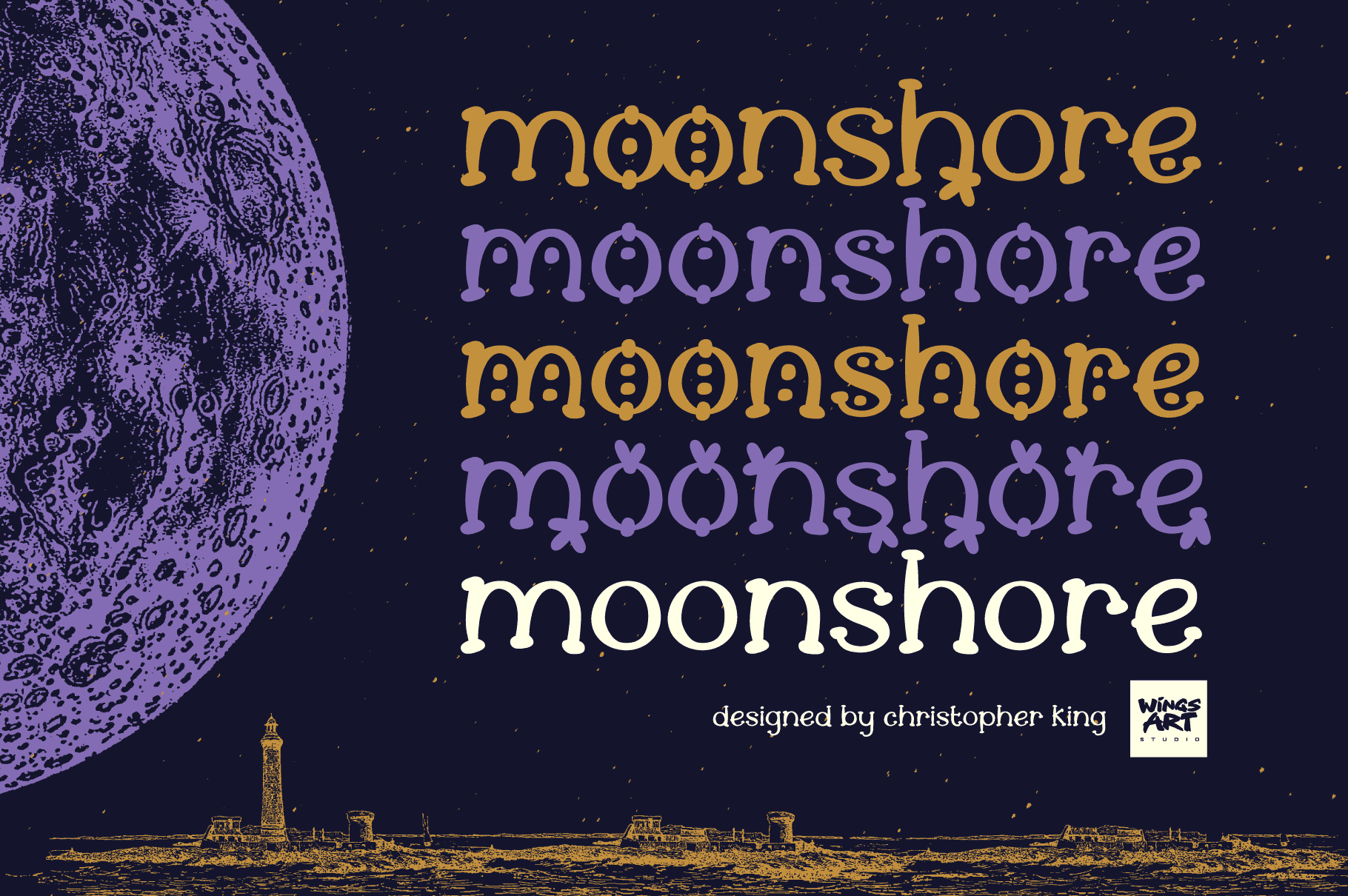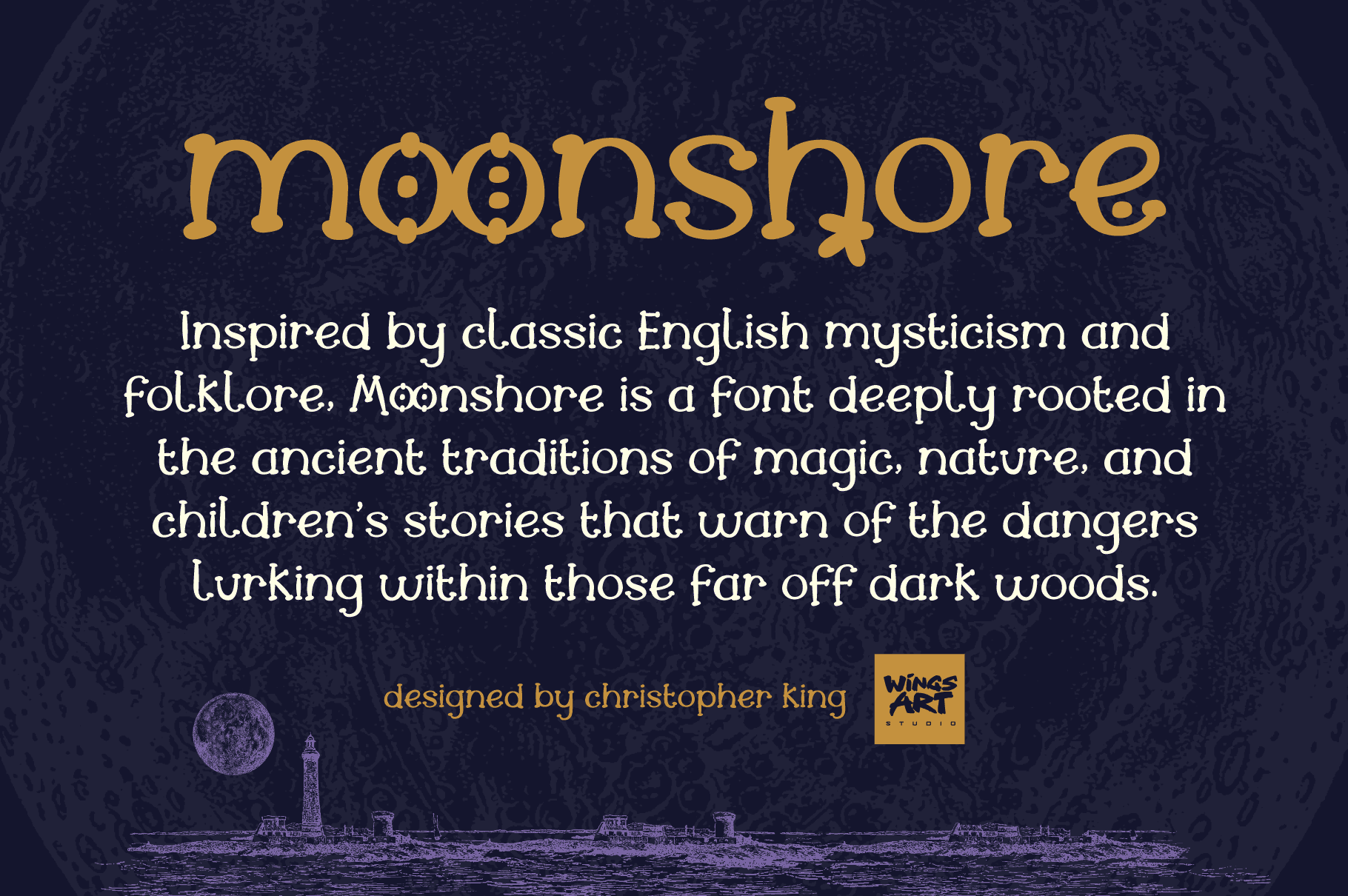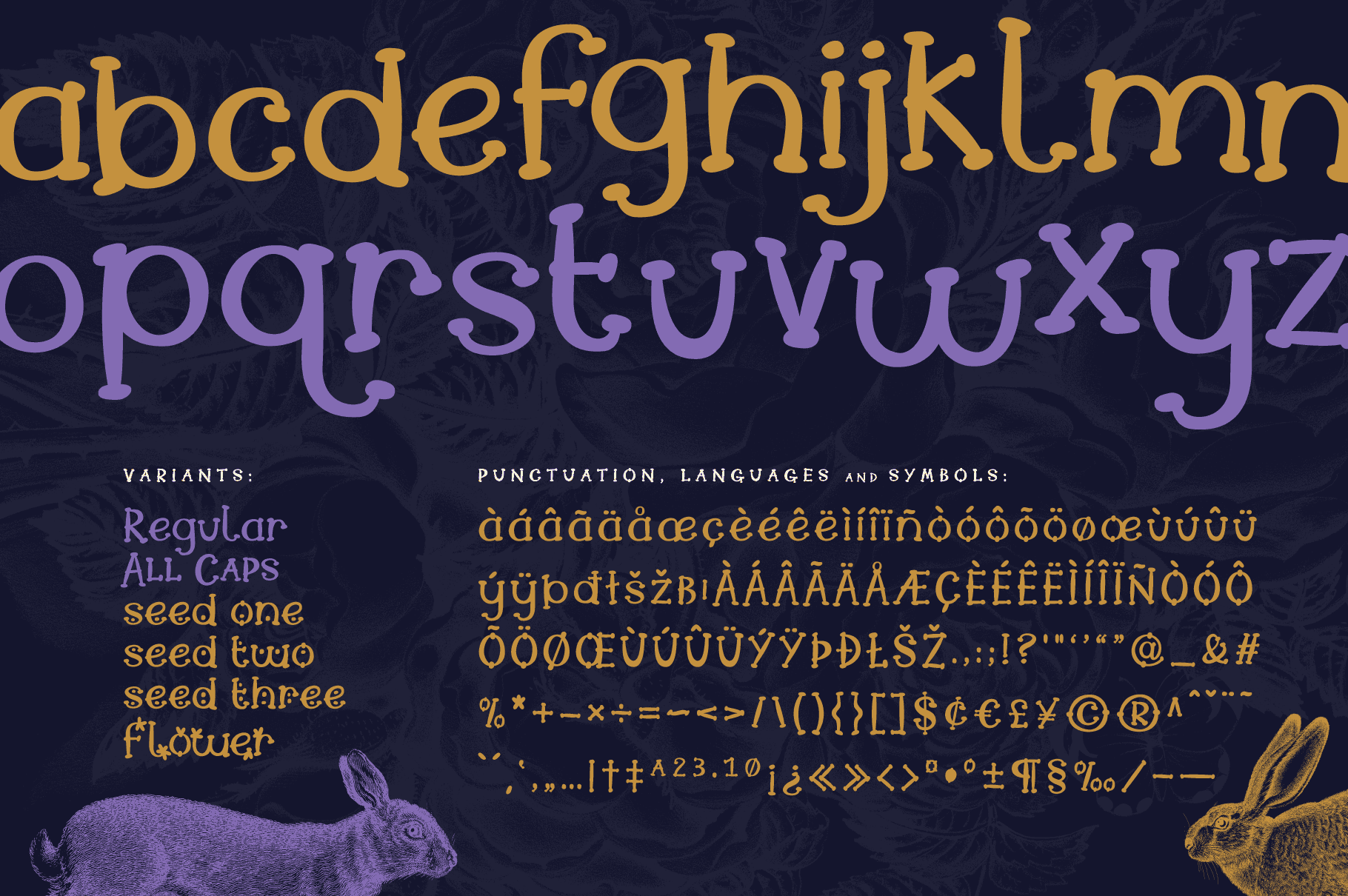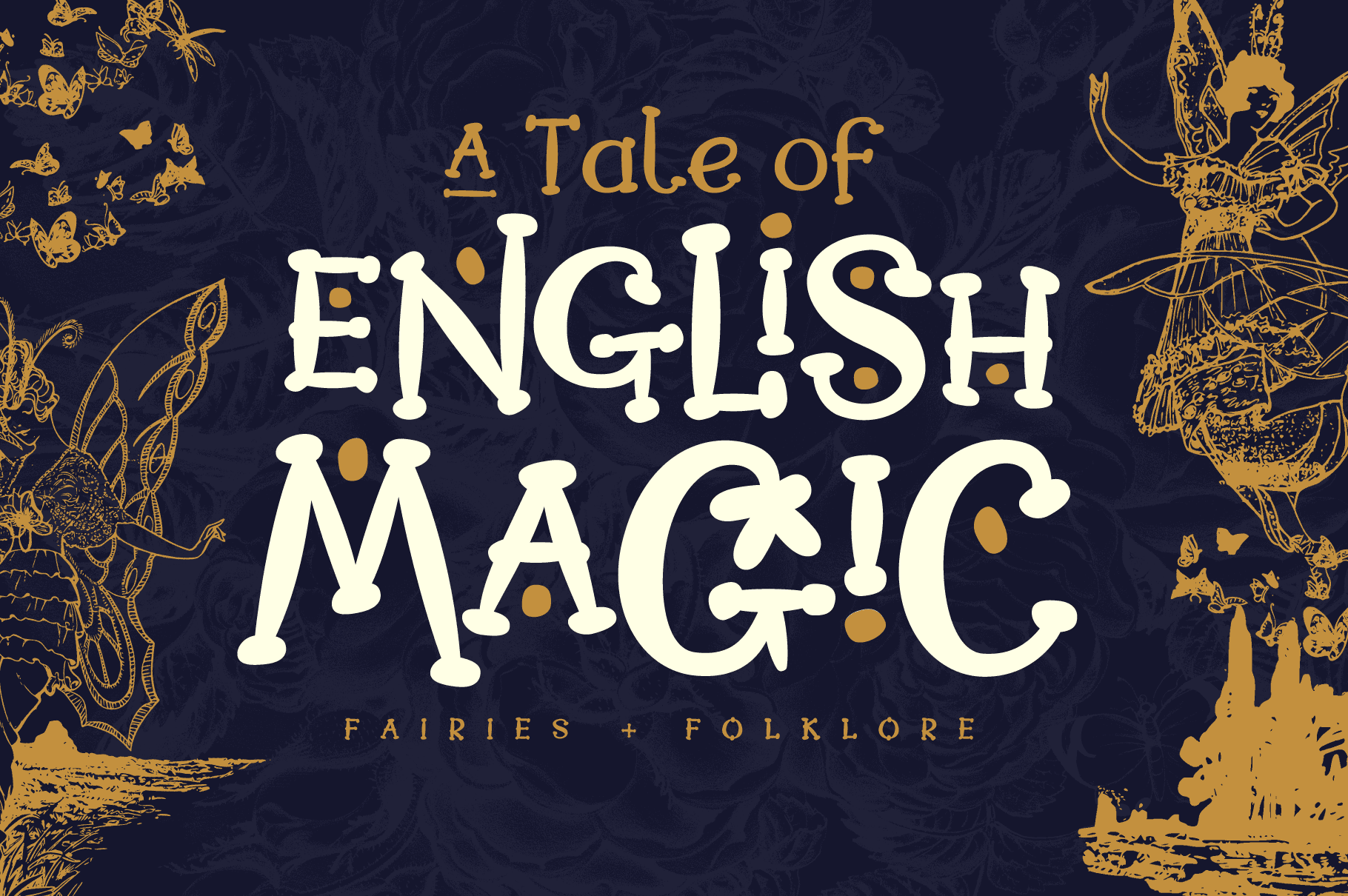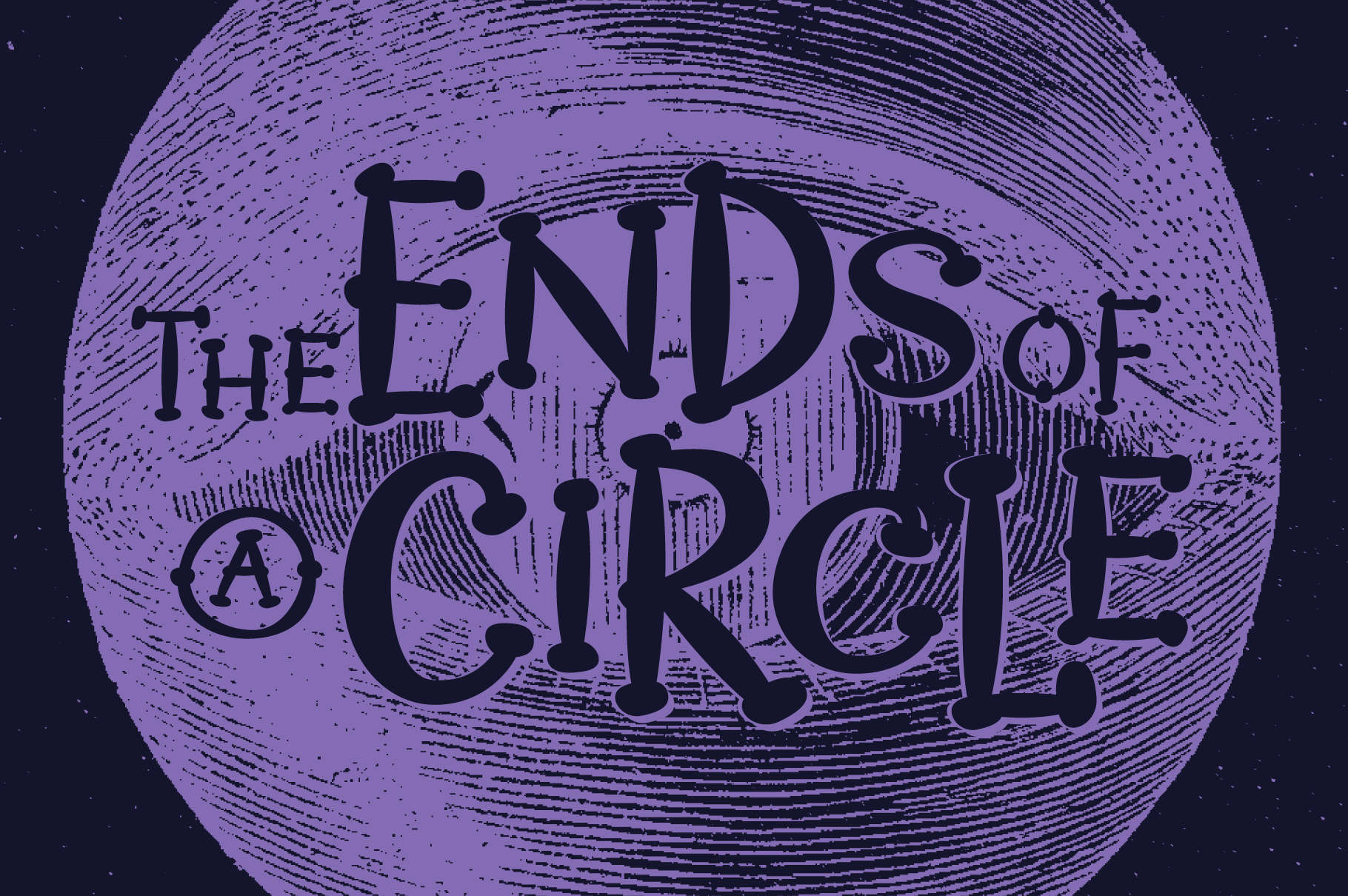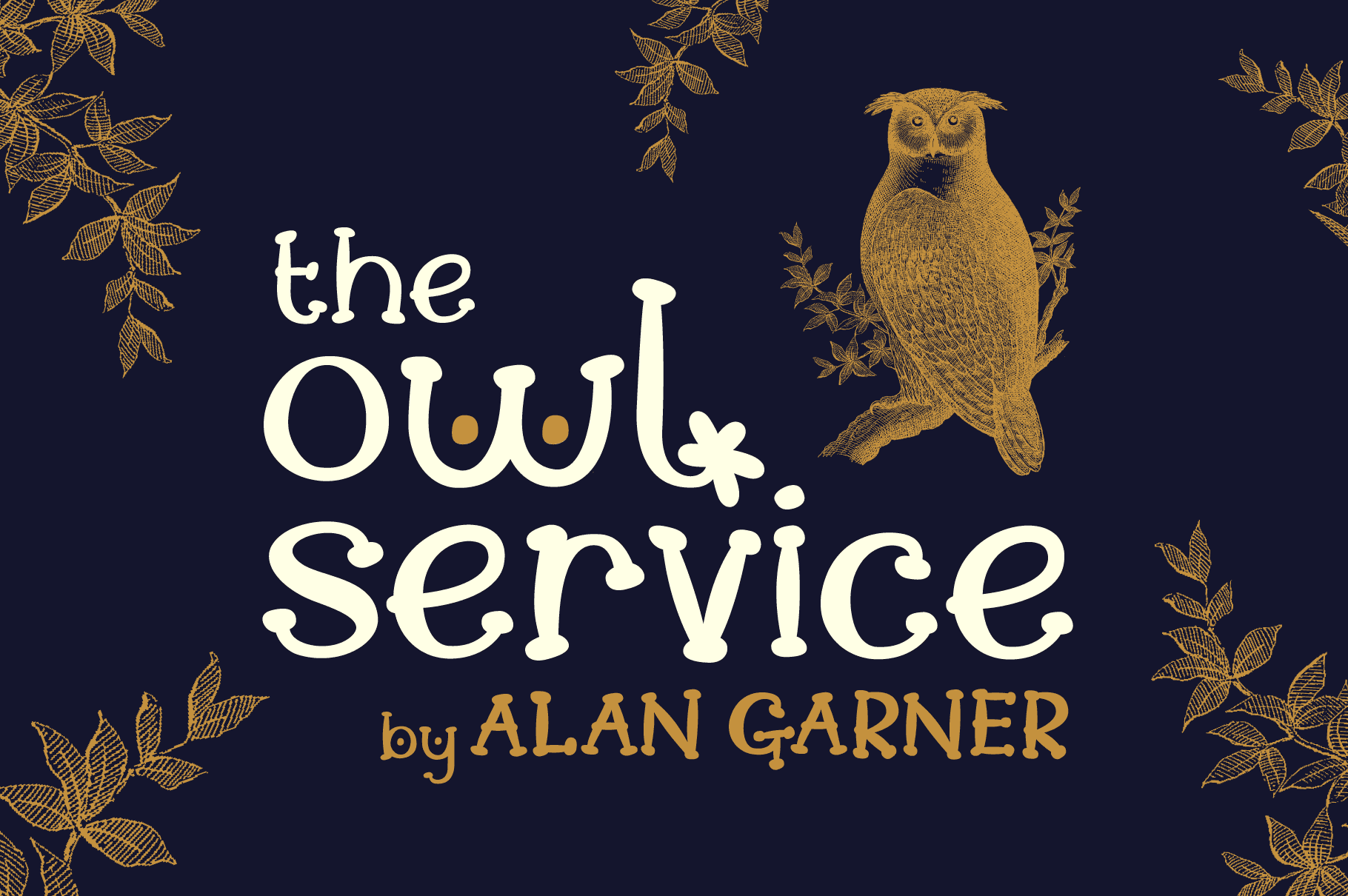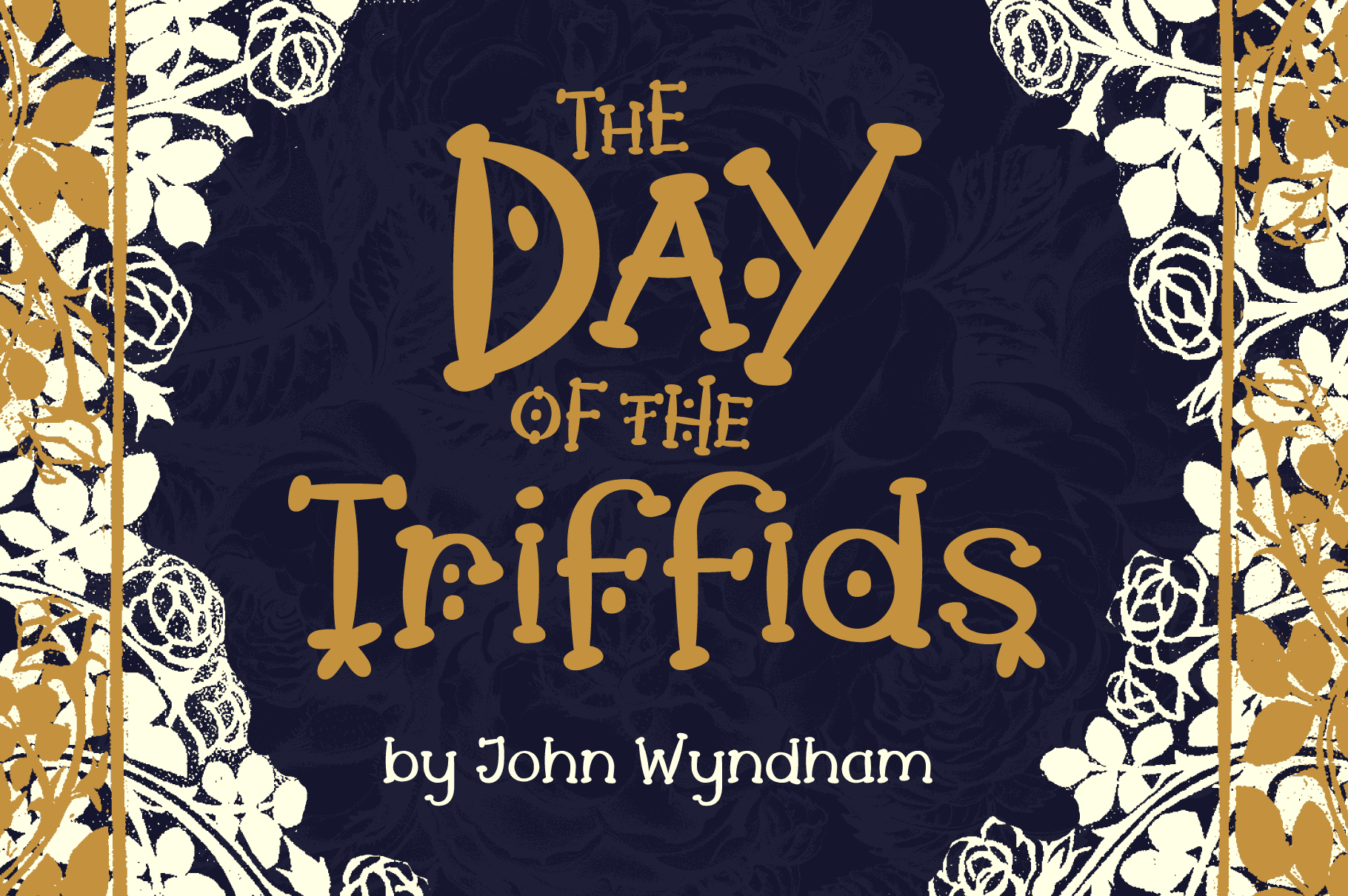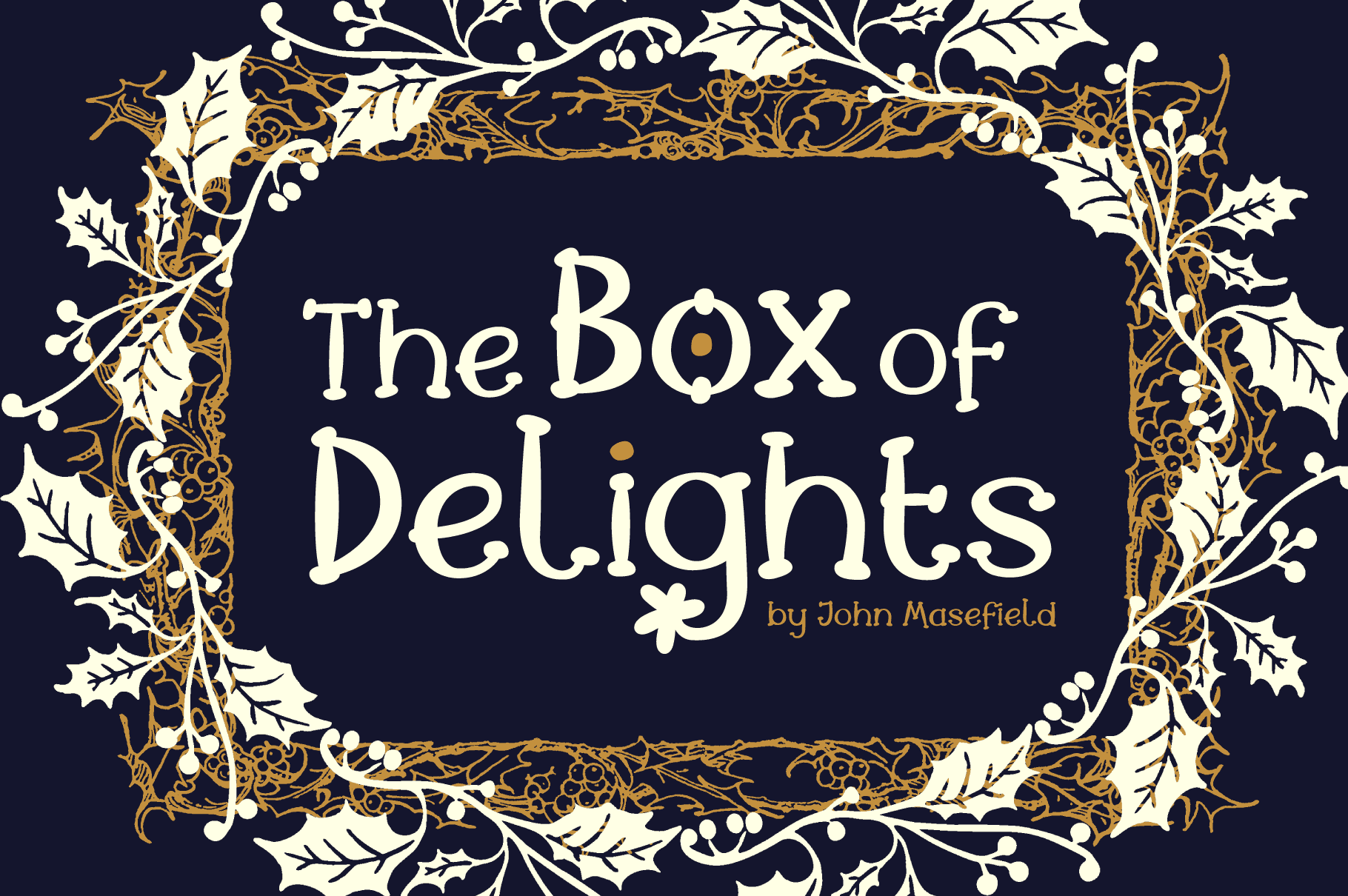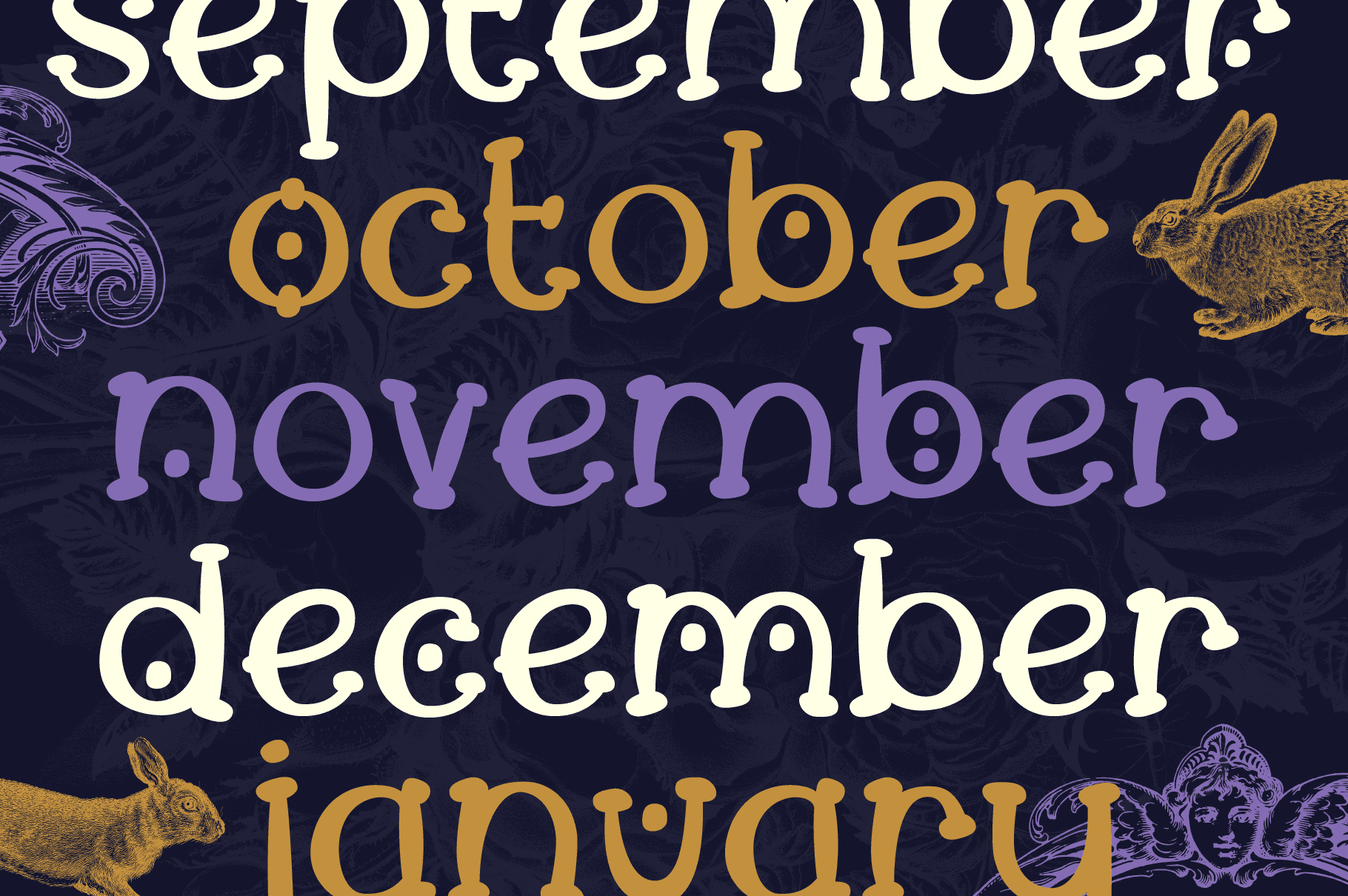
A serif font inspired by classic English mysticism and folklore.
Inspired by classic English mysticism and folklore, Moonshore is a font deeply rooted in the ancient traditions of magic, nature, and children’s stories that warn of the dangers lurking within those far-off dark woods.
Moonshore lives at the crossroads of nature, science, and the paranormal. Inspired by writers who explored the mysteries surrounding occult sites like Stonehenge, or new recording technology that might just capture a spectral image within the walls of an ancient castle. As October approaches and the nights draw in, it’s the perfect font for telling fire-side stories and indulging in some cosy Yuletide gothic.
The Moonshore font family comes in eight styles, each with a complete uppercase and lowercase alphabet, along with numerals, punctuation, and language support. There’s an all-caps alternative, plus decorative variants starting with what I call the ‘seeds’ in three styles, and then the ‘flower’. All of which add up to a fun-to-use font with endless creative options.
Whether it’s Autumn or Winter, Halloween or Christmas, Moonshore offers something for the storytellers among us, adding a visual flair to book covers, title designs, editorials, magic potions, or maybe even an ale or two.
Moonshore Family (V.1)
- Regular
- Seed 01
- Seed 02
- Seed 03
- Flower
- All Caps
- Seed 01
- Seed 02
- Seed 03
- Flower
Moonshore Regular. Upper and lowercase characters. Variants include Seed and Flower styles.
Moonshore All-Caps. Upper and lowercase characters. Variants include Seed and Flower styles.